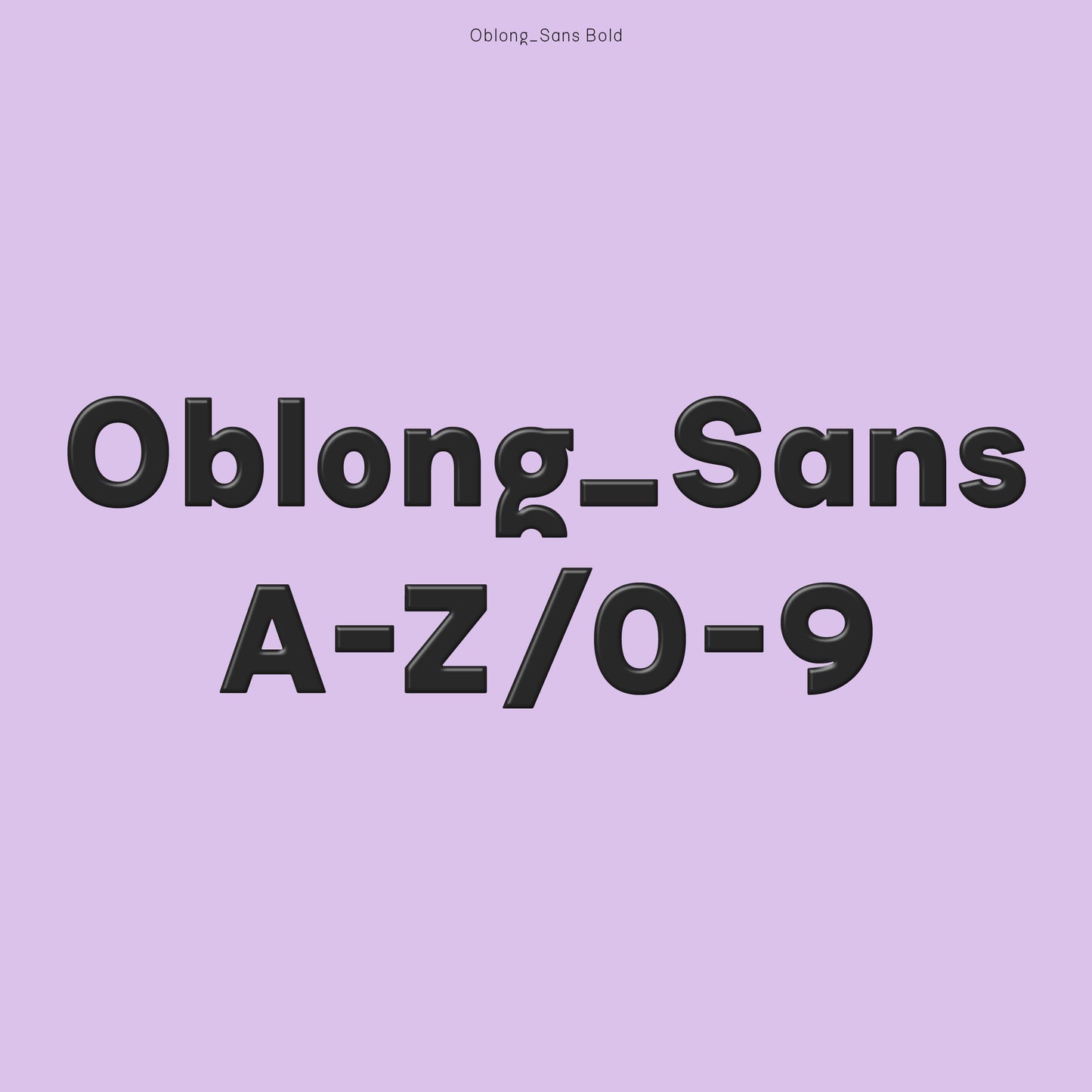
Oblong Sans
Johanne Lian Olsen
Oblong Sans is a friendly grotesque typeface with contemporary, playful features. It blends clean lines with subtly unusual touches, making it ideal for strong, well-crafted headlines and sturdy medium-length texts.
Released in 2020, Oblong Sans comes in 5 versatile weights and supports Western European languages. With a comprehensive glyph set of 400 characters and numerous stylistic alternates, it offers ample room for experimentation and creative expression while maintaining a clean, sharp aesthetic.